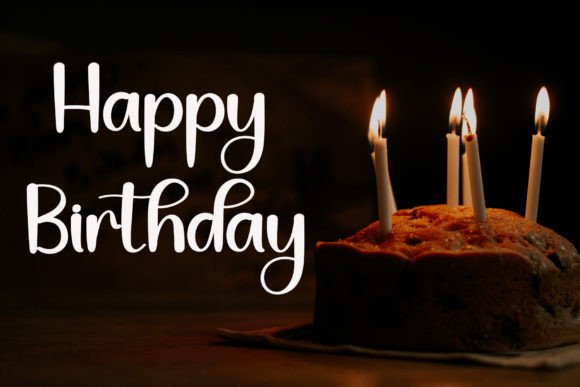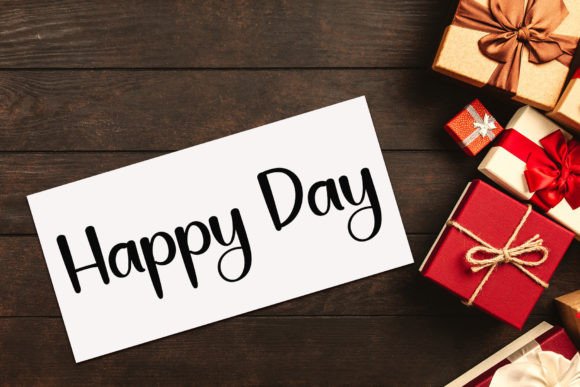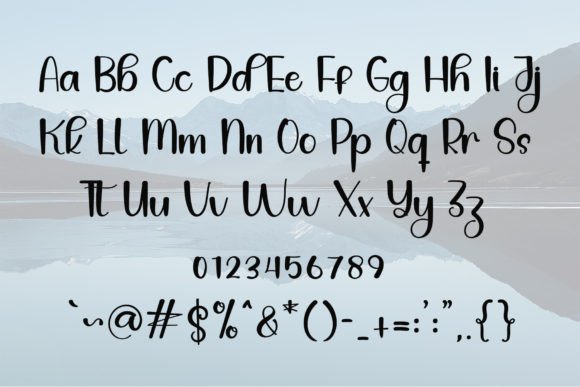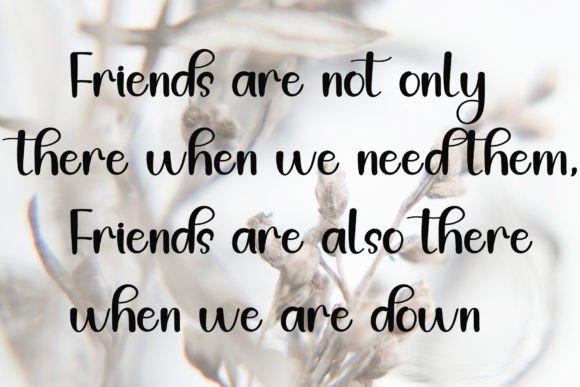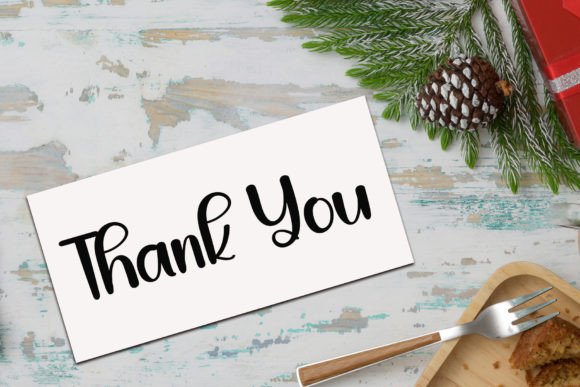
Introducing Handmade Promotion Font: Elevate Your Designs with Timeless Elegance
In the world of typography, a well-crafted font can make all the difference in elevating your designs from ordinary to extraordinary. For designers and crafters seeking a touch of elegance and sophistication, the Handmade Promotion Font is an exceptional choice. This stylish handwritten font boasts a contemporary atmosphere and impeccable form, drawing inspiration from timeless classic calligraphy.
What Makes Handmade Promotion Font Stand Out?
Handmade Promotion Font is not just another addition to the vast sea of digital fonts; it’s a carefully crafted typeface designed to bring a sense of balance and variety to your projects. Its unique blend of classic calligraphy elements and modern flair makes it an ideal choice for a wide range of applications, from branding and advertising to packaging and digital media.
Key Features of Handmade Promotion Font
- Contemporary yet Classic: This font strikes the perfect balance between modern aesthetics and traditional calligraphy, making it versatile for various design needs.
- Balanced and Varied: With its meticulously designed characters, Handmade Promotion Font offers a harmonious blend of elegance and readability, ensuring your text always looks refined.
- Impeccable Form: Each letterform is crafted with attention to detail, providing a clean and sophisticated look that enhances the beauty of your projects.
- Handwritten with Love: The font’s handmade nature gives it a personal touch, making your designs stand out with a unique character that resonates with audiences.
Who Can Benefit from Handmade Promotion Font?
Whether you’re a professional designer, a crafty DIY enthusiast, or a business owner looking to elevate your brand’s visual identity, Handmade Promotion Font can be a valuable asset. It’s particularly suited for:
- Graphic Designers: Looking for a sophisticated yet approachable font for client projects, branding, and marketing materials.
- Crafters and Makers: Seeking a unique and elegant font to add a personal touch to handmade products, packaging, and promotional materials.
- Digital Content Creators: Needing a stylish and readable font for blog posts, social media graphics, and digital newsletters.
How to Use Handmade Promotion Font Effectively
To make the most of Handmade Promotion Font, consider the following tips:
- Pair it with Simplicity: Let the font be the focal point by pairing it with simple backgrounds or design elements.
- Experiment with Sizes: Play with different font sizes to create visual hierarchy and emphasize key messages.
- Mix with Other Fonts: Combine Handmade Promotion Font with complementary fonts for added depth and interest in your designs.
Handmade Promotion Font is more than just a typeface; it’s a design tool that can transform your projects with its elegant, contemporary, and meticulously crafted characters. Inspired by the timeless beauty of classic calligraphy, this font brings a touch of sophistication and personal warmth to any design. Whether you’re aiming to create stunning visual content, elevate your brand’s aesthetic, or simply add a unique flair to your handmade products, Handmade Promotion Font is an excellent choice. Embrace the blend of tradition and modernity it offers, and watch your designs flourish with a new level of elegance and charm.